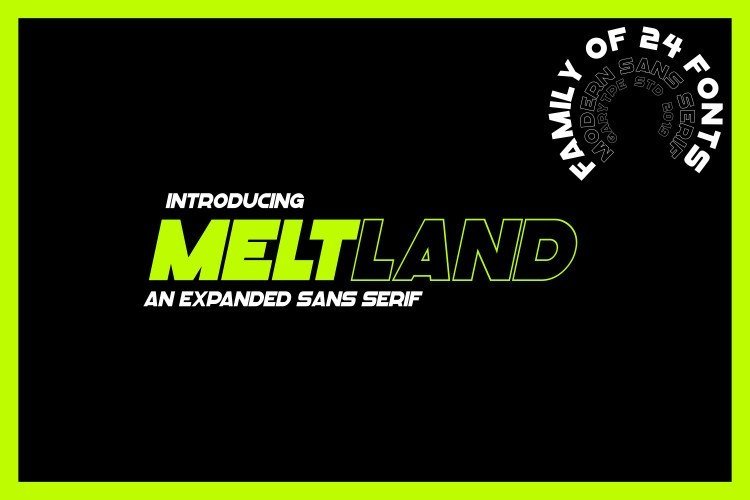
Meltland Sans Serif Font
Meltland Font – A bold, chunky italic that oozes strength and fierceness. Let explore your inner creativity with the use of latest this font – a versatile handcrafted font family pack with 24 fonts!
It’s an created by Gartype Studio. Very much useful to create bold titles of packaging, magazine, great quotes, printable items, media and creative branding design.